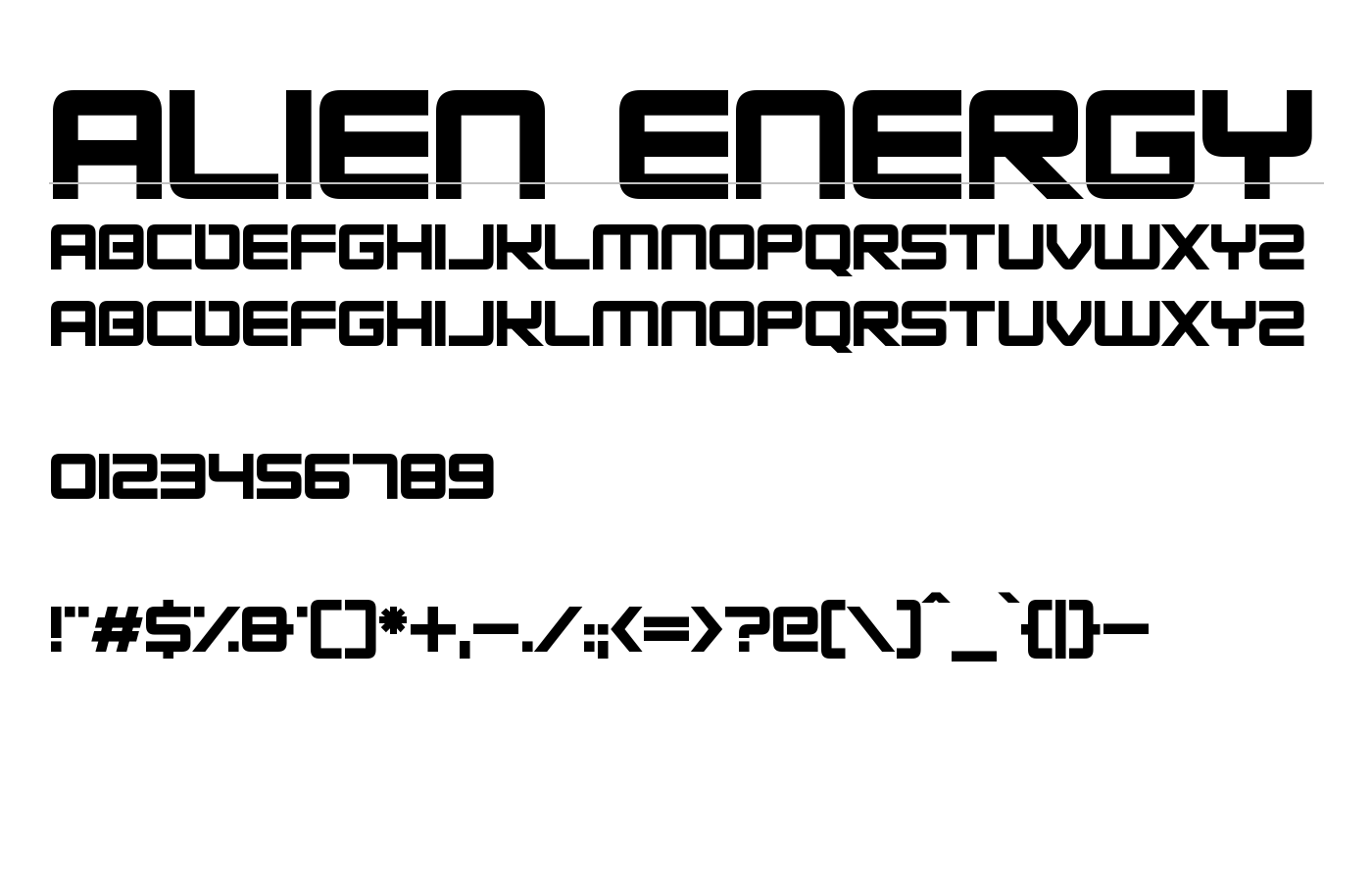
Alien Energy Font is a bold, geometric sans serif with a futuristic and tech-inspired style. Its clean, squared letterforms and uniform stroke weight create a modern, tech-savvy feel, perfect for sci-fi themes, logos, and digital branding. This font works best in headlines and display settings where a strong, innovative impression is desired.
Alien Energy Font
About Alien Energy Font
| Font family | Alien Energy Font |
| Designer | Darrell Flood |